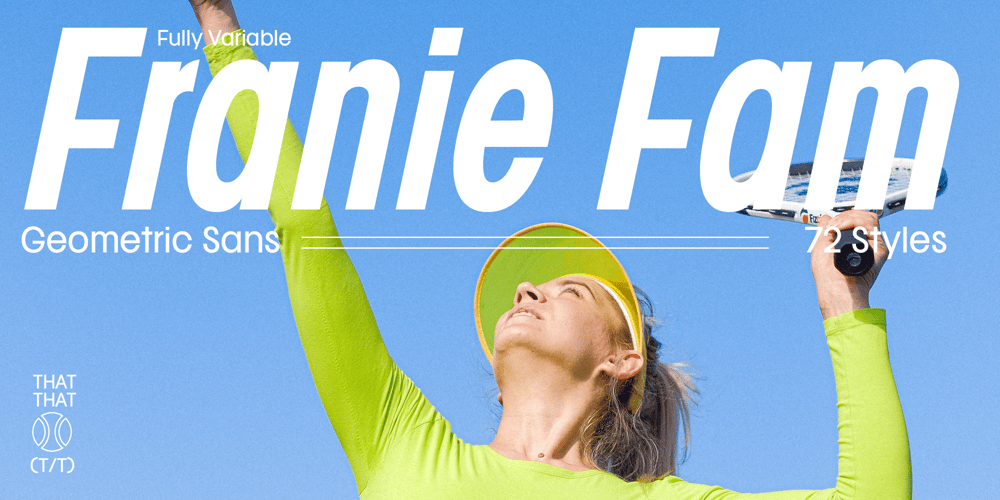
Franie
Franie font
Franie Font Family was designed by Harbor Bickmore and published by That That Creative. Franie contains 73 styles and family package options. Franie is a variable geometric sans serif font family with 72 styles. Fully customize the width, weight and italic angle. This modern clean typeface is perfect for contemporary layouts for print, magazines, posters, web, social media, branding logos, or whatever.